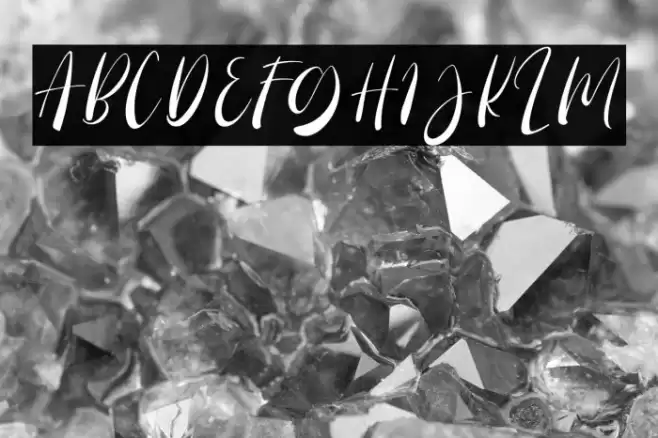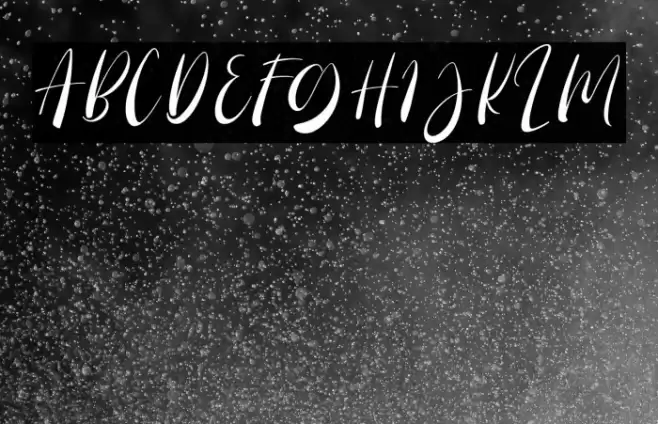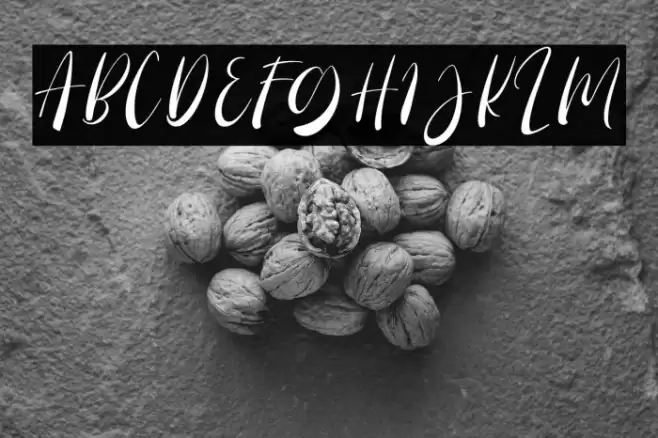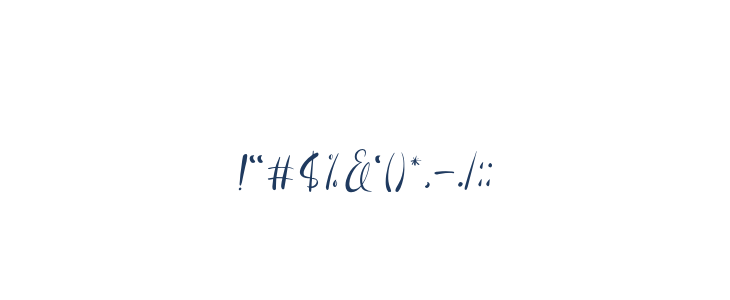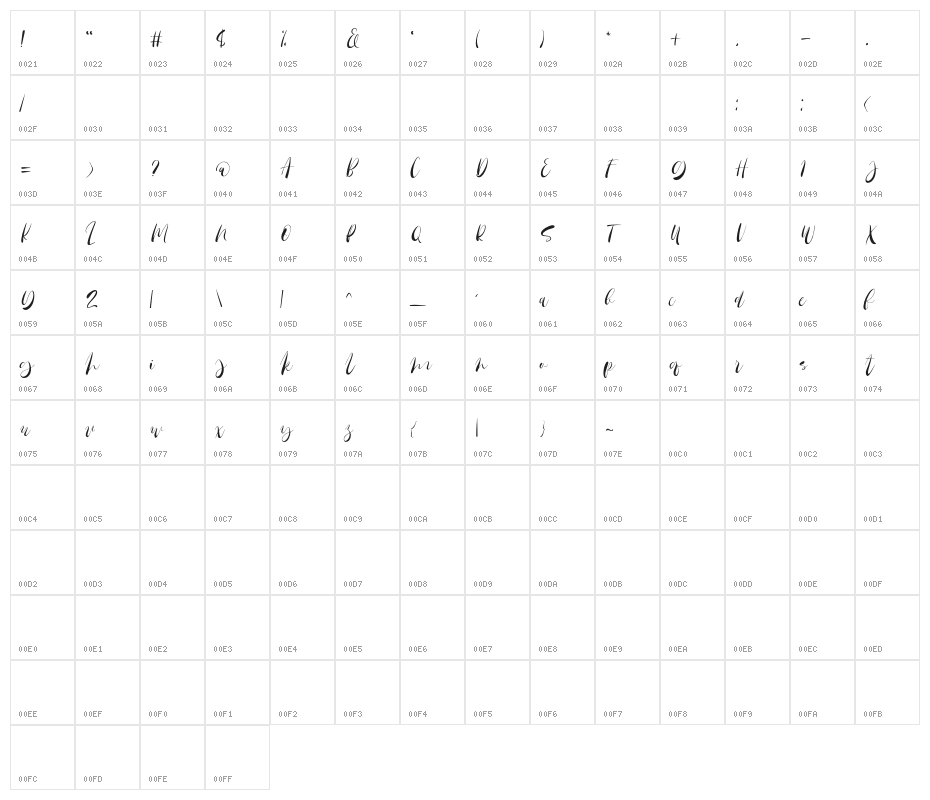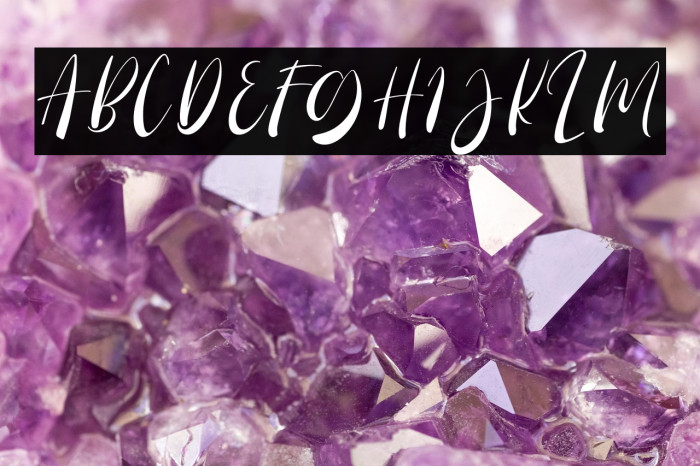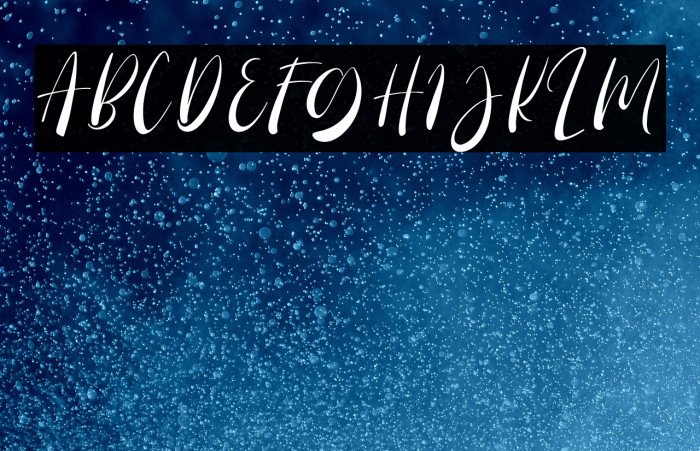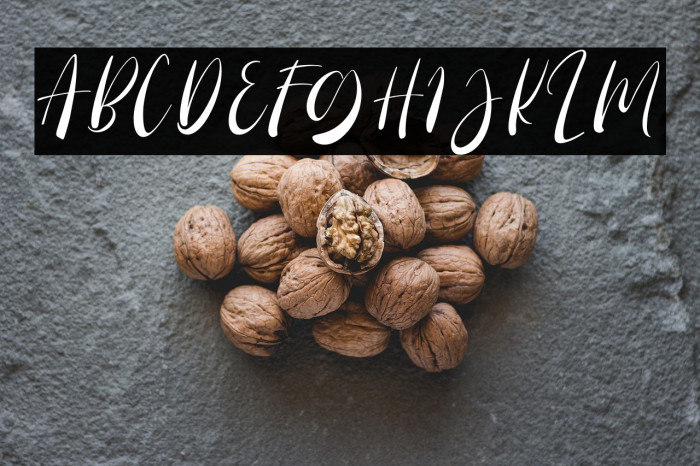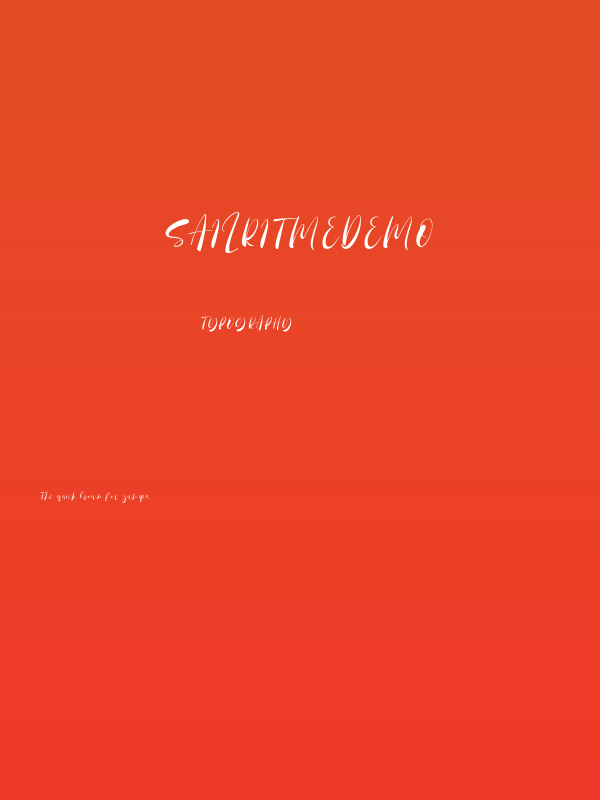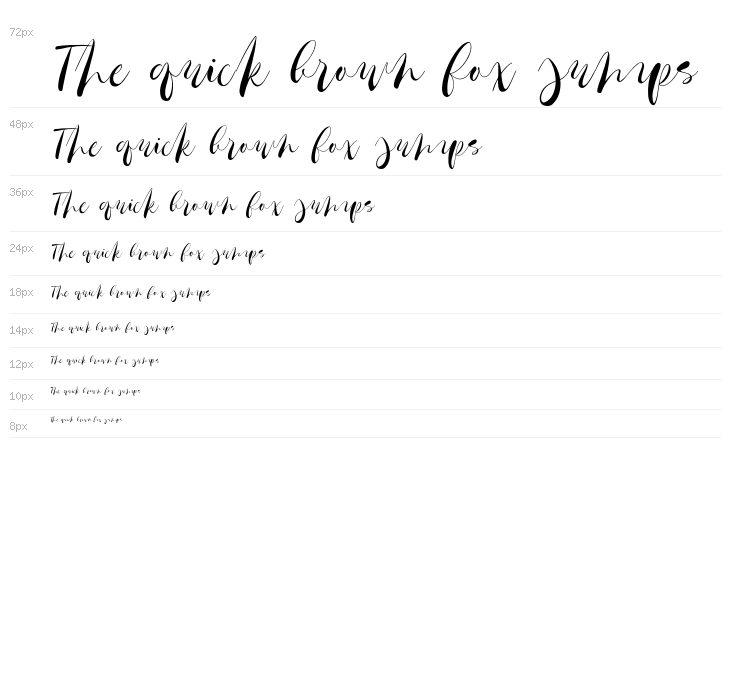
SailritmeDEMO Font
SailritmeDEMO Description
This font exudes a lively and elegant script style, characterized by its flowing, cursive letterforms. The strokes are dynamic and exhibit a natural, handwritten quality, with varying thickness that adds a sense of movement and grace. The uppercase letters are bold and sweeping, while the lowercase letters maintain a consistent fluidity, making it ideal for creating a personal and inviting aesthetic. The numbers and special characters are crafted with the same attention to detail, ensuring a cohesive look across all elements. This font is perfect for projects that require a touch of sophistication and charm.
A lively and elegant script font with flowing, cursive letterforms from Uncategorized fonts.
- Font: SailritmeDEMO
- Proposed Projects: Ideal for wedding invitations, greeting cards, branding, and social media graphics.
- Overall Style: Elegant, Handwritten
- Use Case: Logos, Invitations, Decorative text